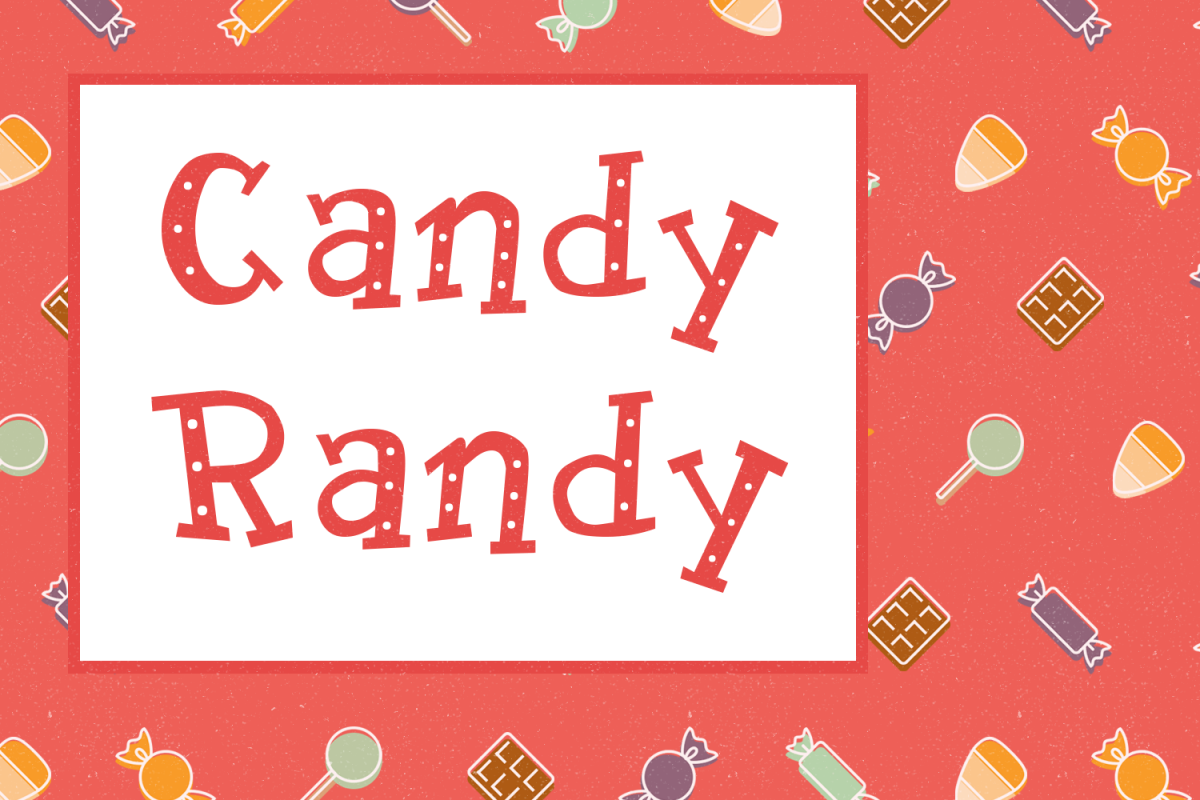
Candy Randy
Not inspired by any one thing, Candy Randy came about as an attempt to capture the feel of hours spent aimlessly perusing children's advertising and packaging from the early 1960s.
It always reminds me a bit of Christmas and was named after an imaginary character in tales told to my youngest sister.